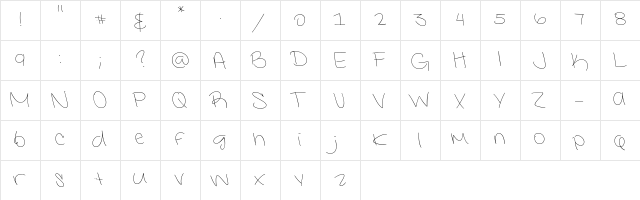
Interconnected Demo Light
| Designer | Roland Huse |
Design Context for Interconnected Demo Typeface
Interconnected Demo is a composed and adaptable typeface that performs quietly and consistently across a wide range of design contexts. Its slender proportions lend an understated elegance to any composition.